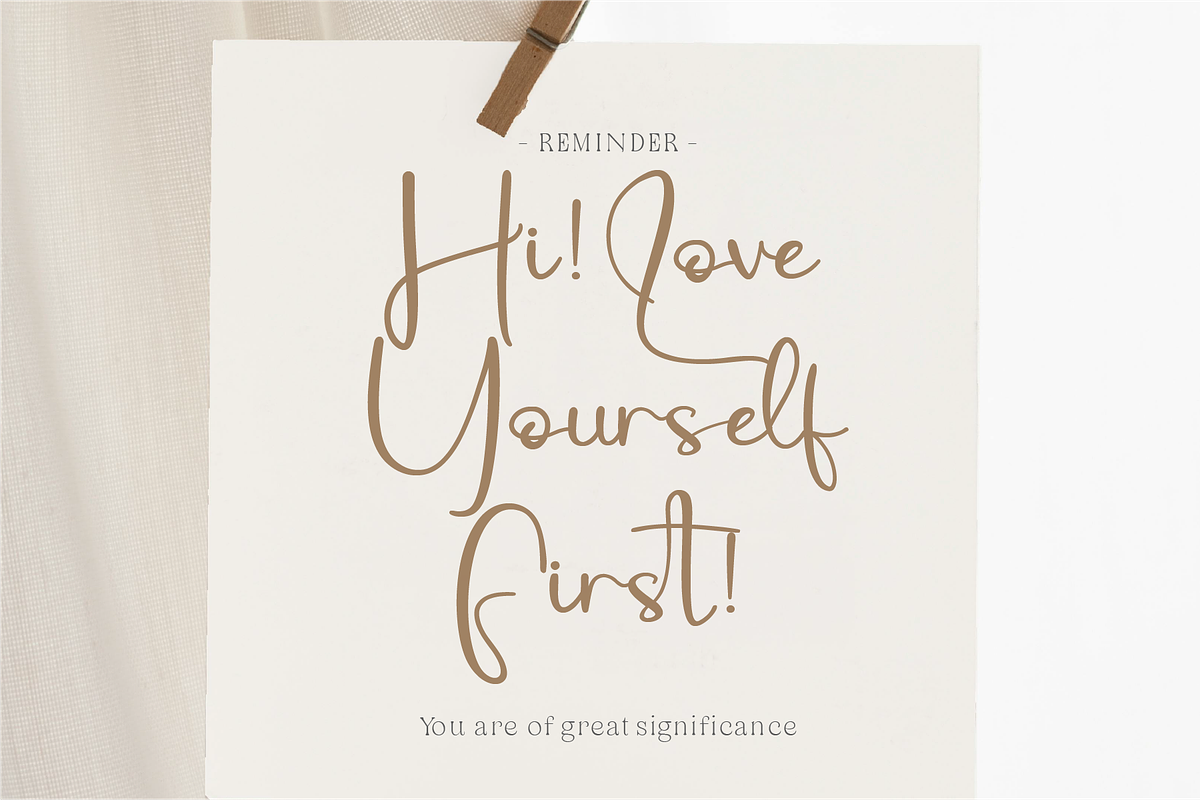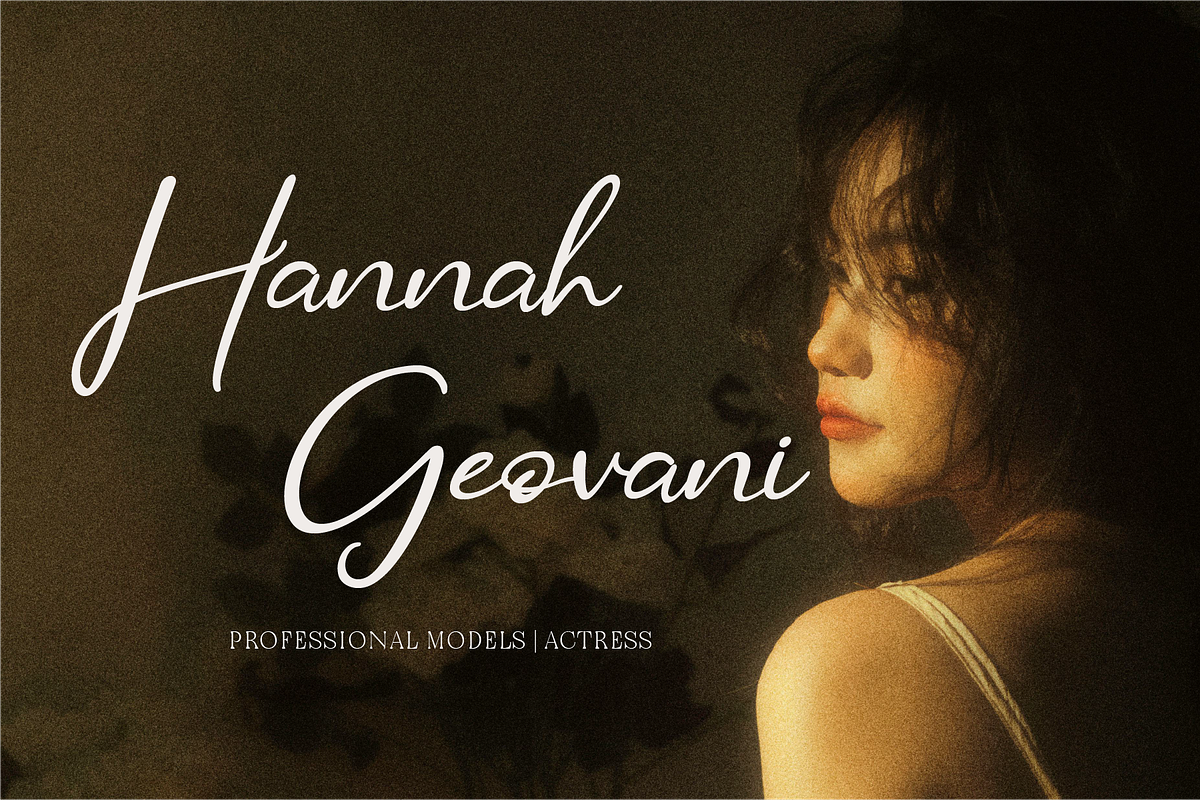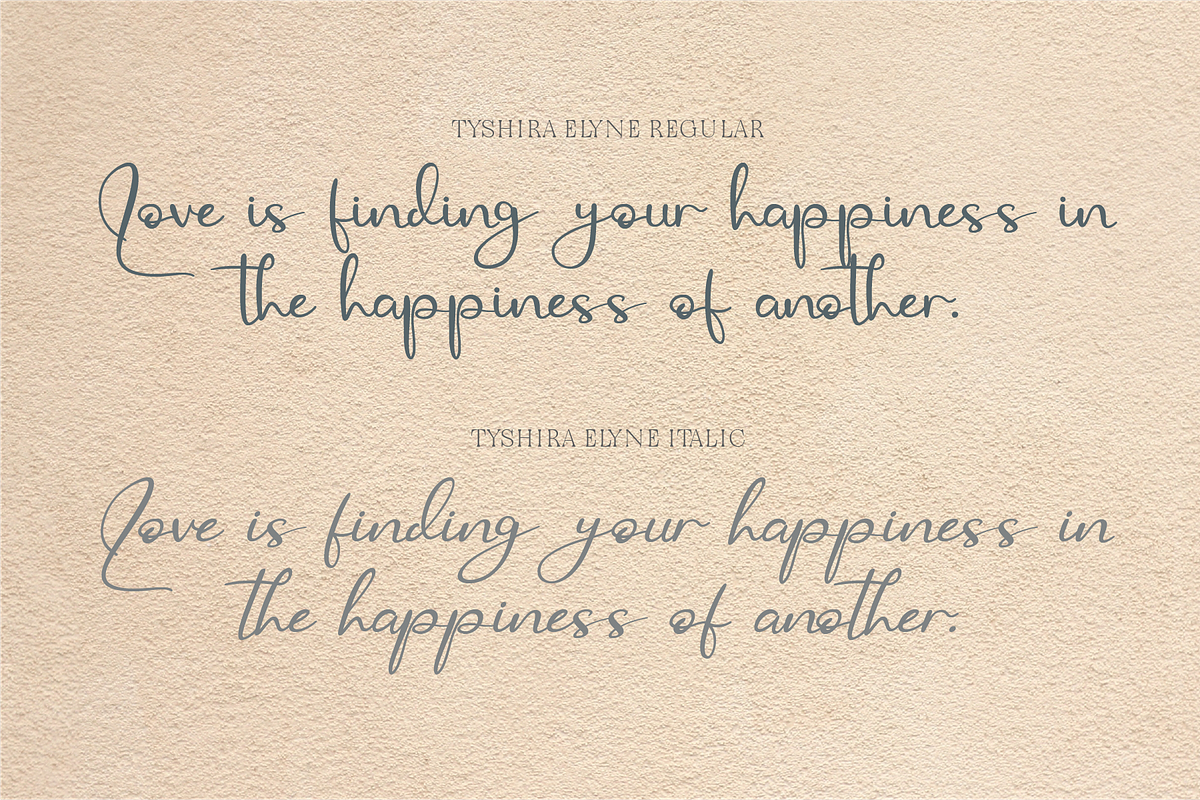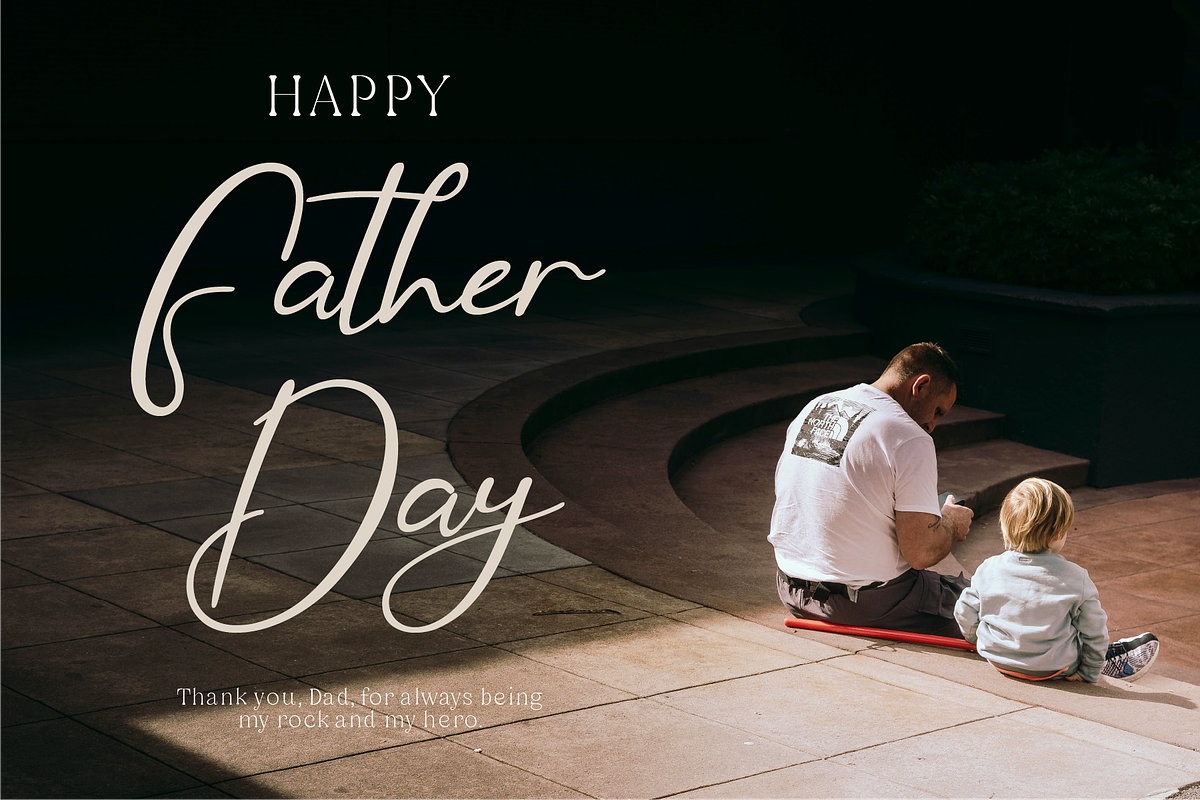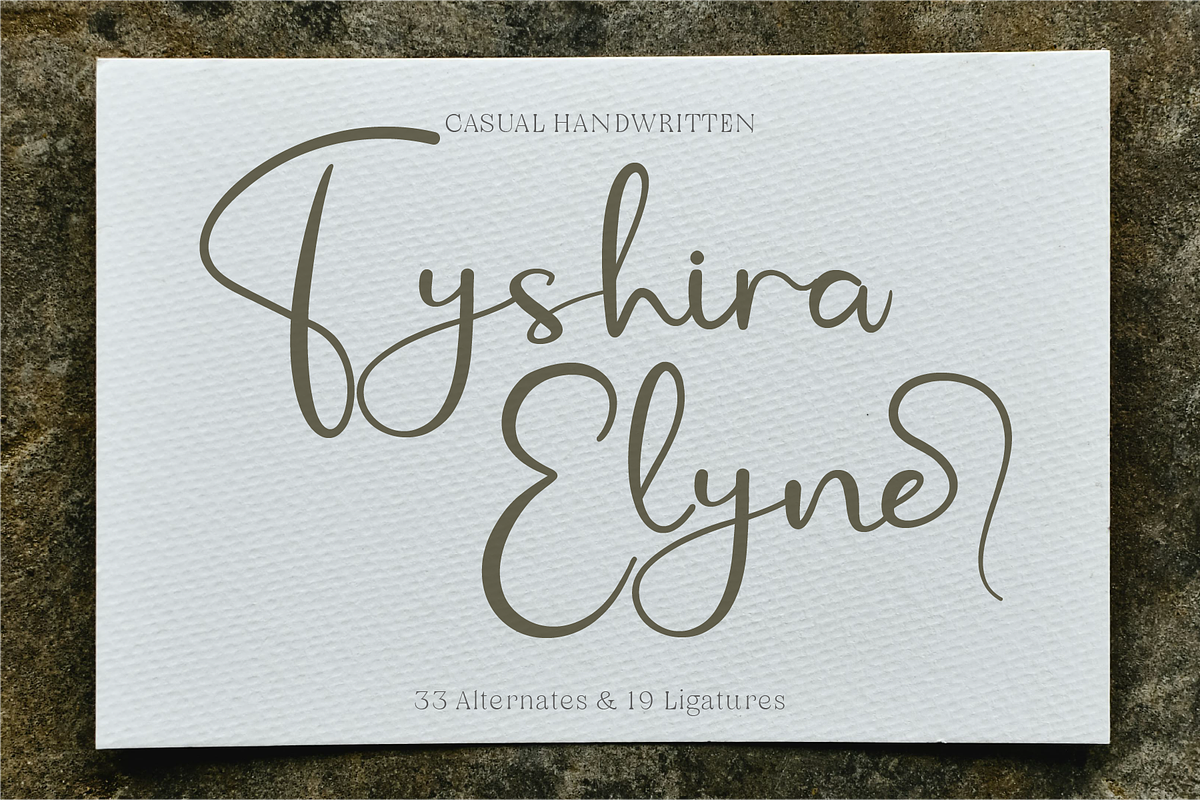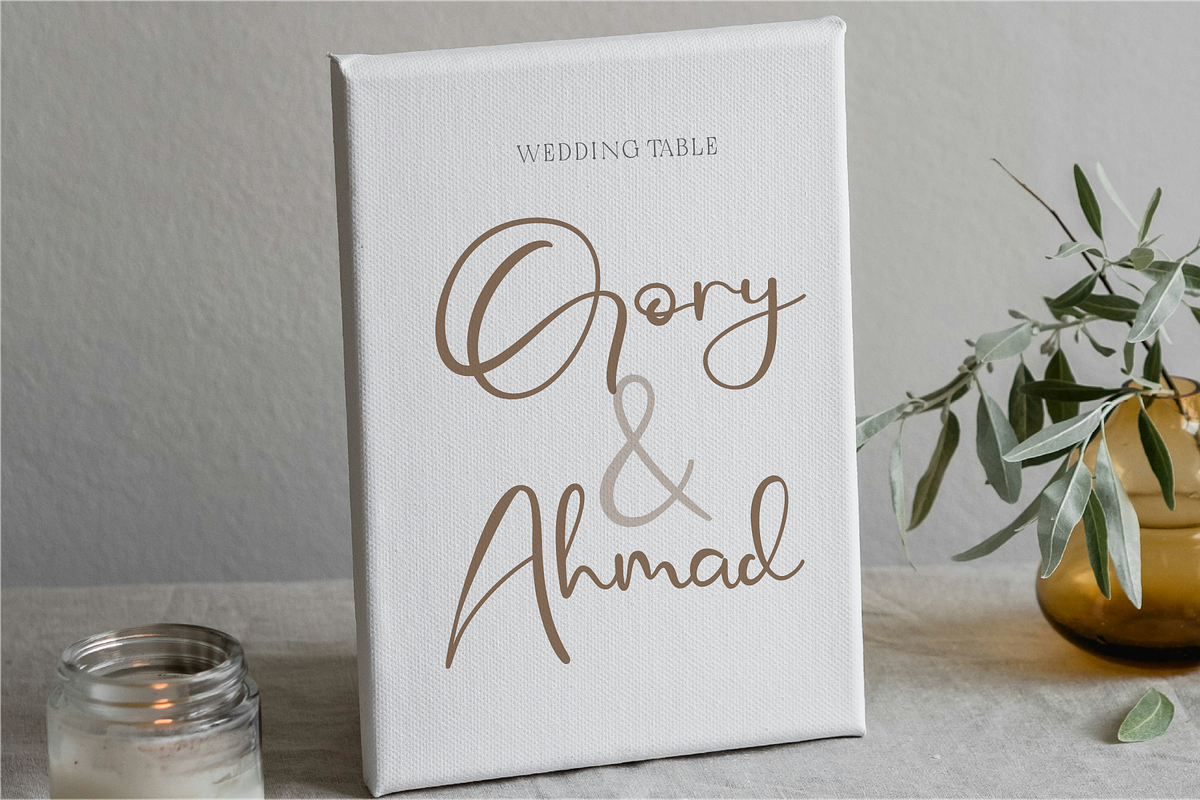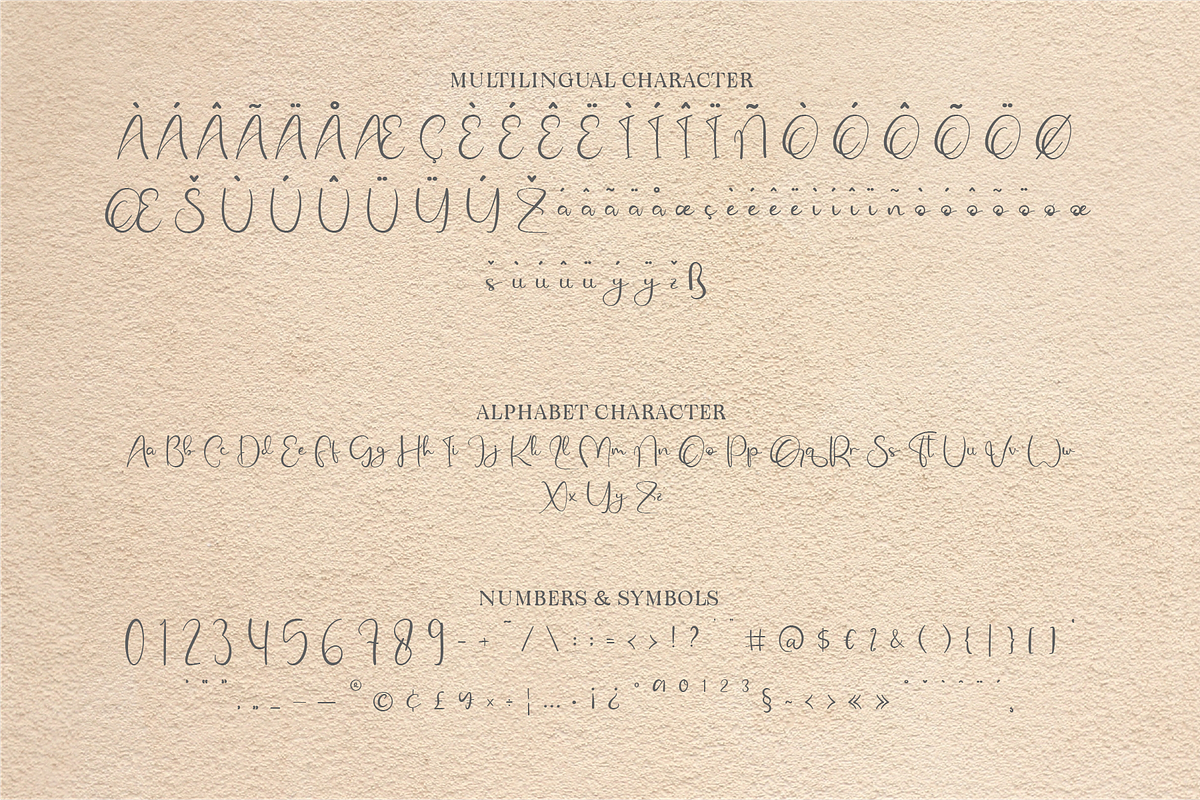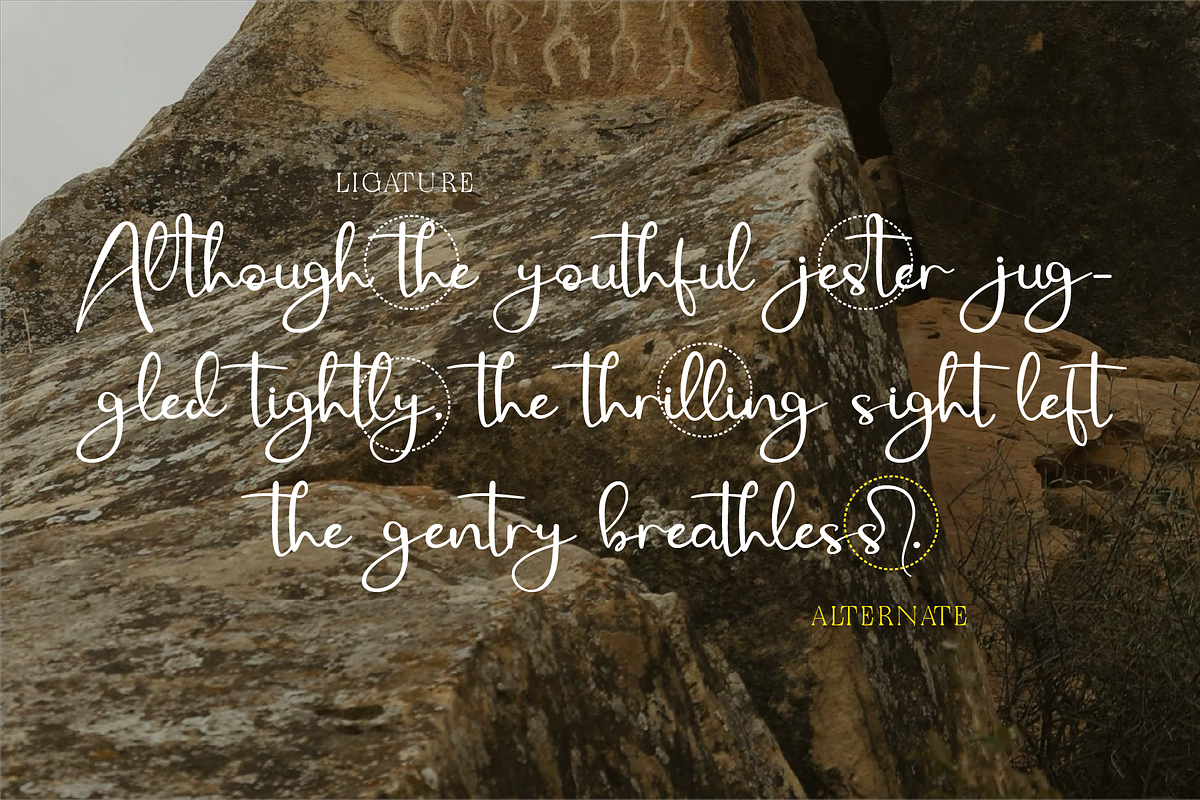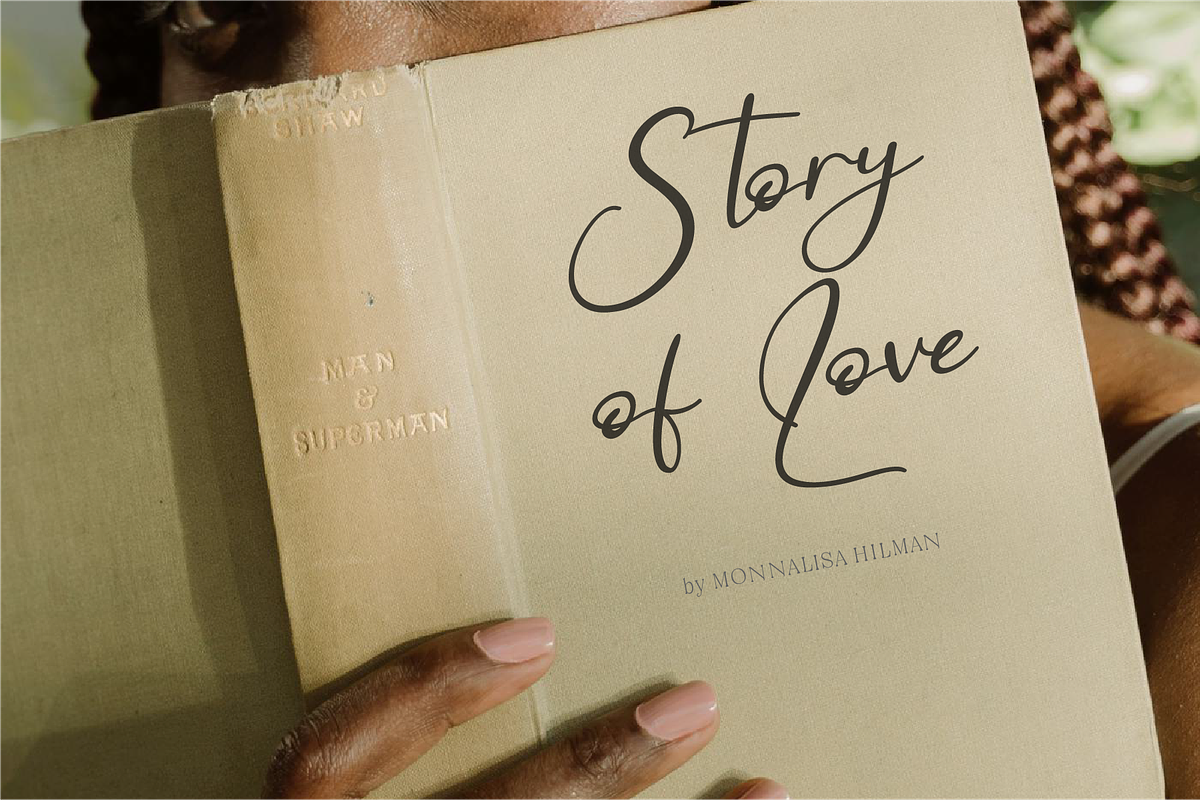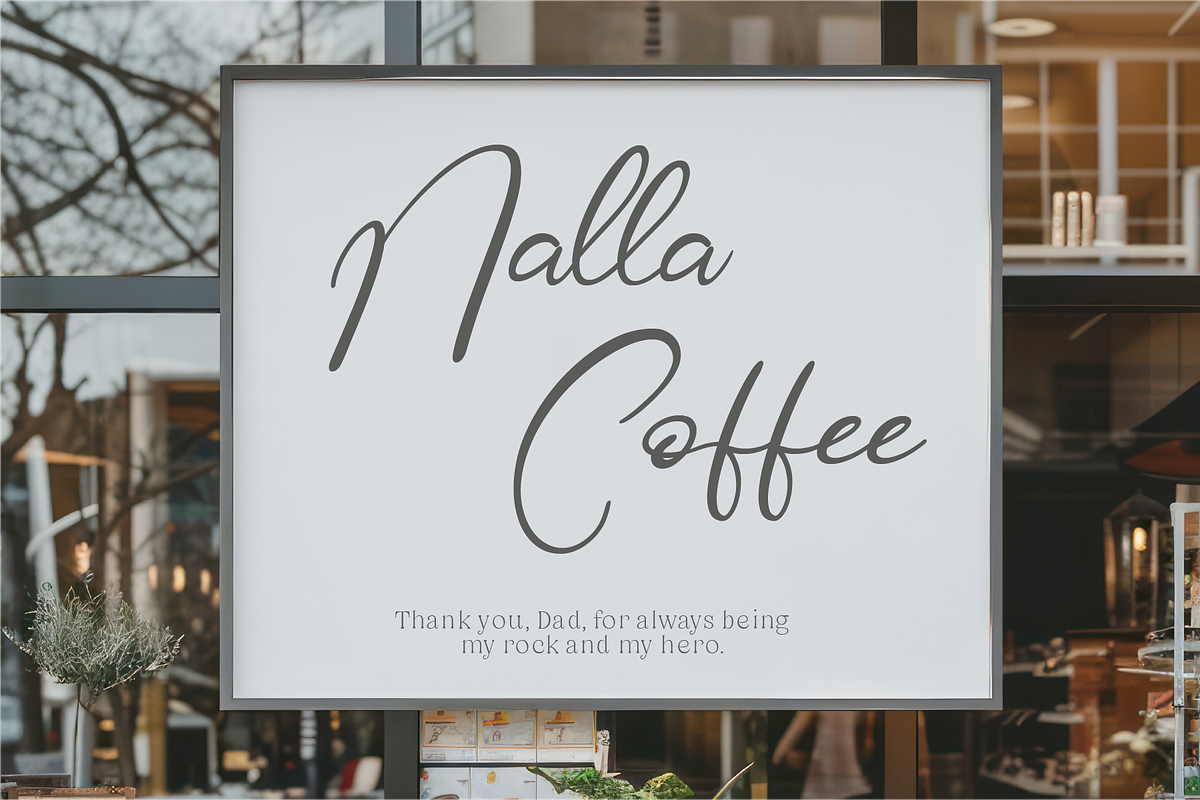
Tyshira Elyne - Casual Handwritten
Tyshira Elyne is a beautifully crafted handwritten script that blends casual charm with refined elegance. Designed with smooth curves and organic strokes, this font feels effortless and natural, making it perfect for both modern and timeless designs. Featuring 33 alternates and 19 ligatures, Tyshira Elyne offers incredible versatility, allowing you to create unique, artistic compositions that mimic real handwriting. This font is ideal for a wide range of applications, from branding and logo design to wedding invitations, social media posts, product packaging, personal blogs, and greeting cards. Its fluid, stylish letterforms make it an excellent choice for projects that require a touch of sophistication while maintaining a relaxed and approachable feel. Whether you're crafting a high-end brand identity or a heartfelt personal message, Tyshira Elyne delivers beauty and readability in every letter.
- Standard Character A-Z, a-z, 0-9, Punctuation & symbols
- Regular and Italic